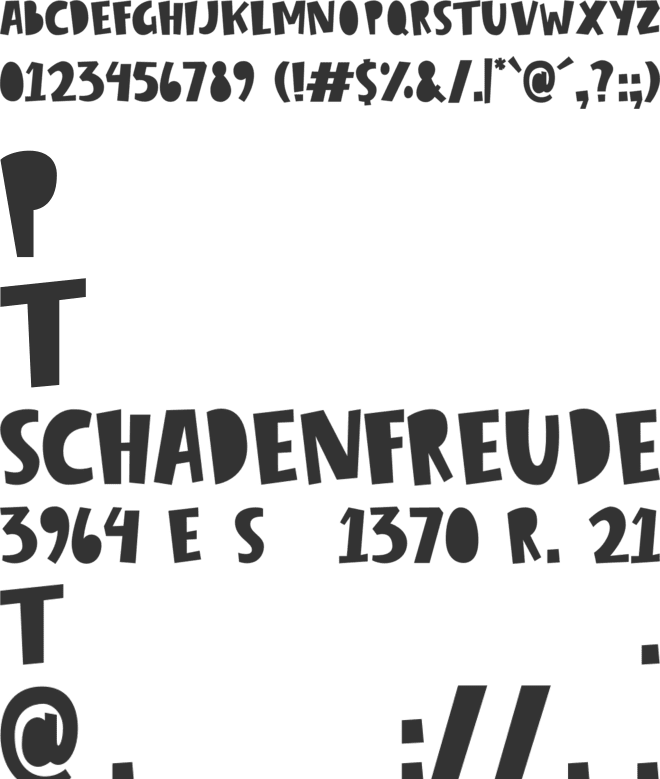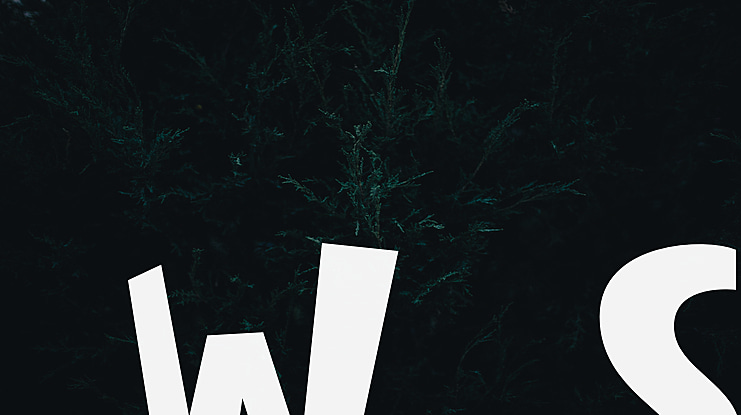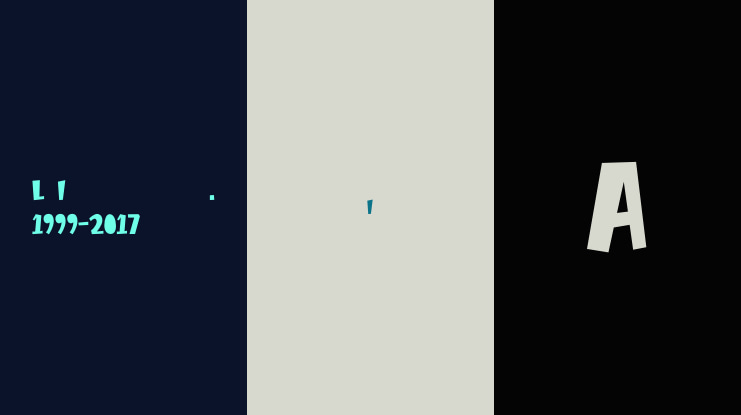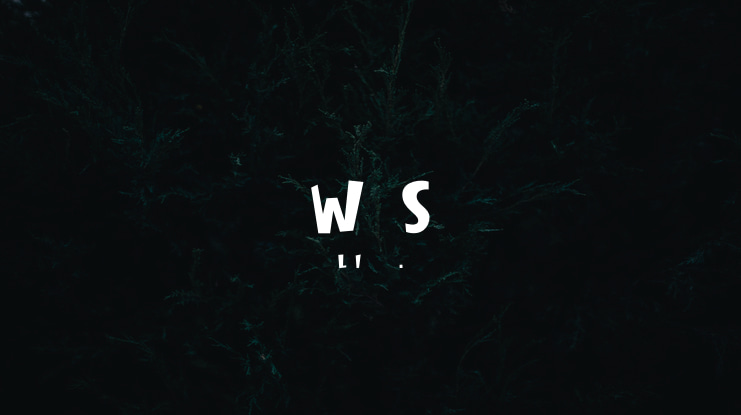
Winter Spring Font
Winter Spring - A Fun Display Font
Winter Spring is a display holiday font with fun, quirky and playful letters. It is an ALL CAPS font.
This font is perfect for quotes, headings, blogs, logos, and more!
This font does include accent characters.